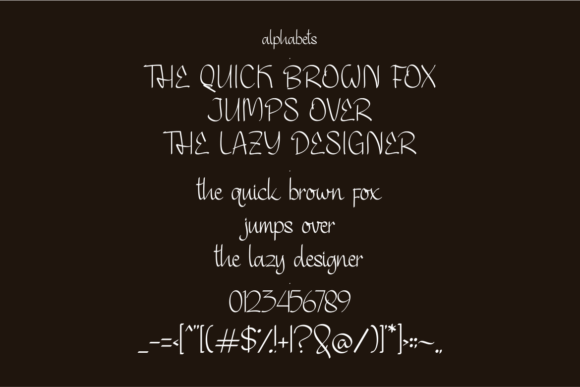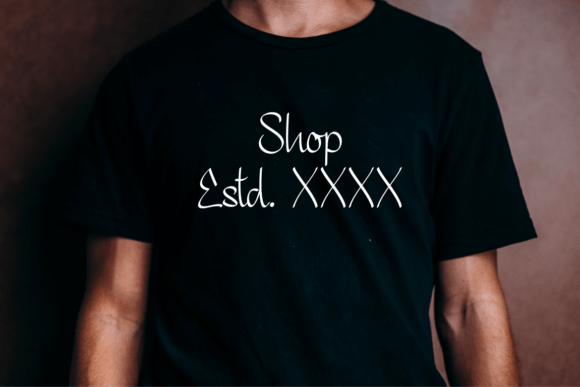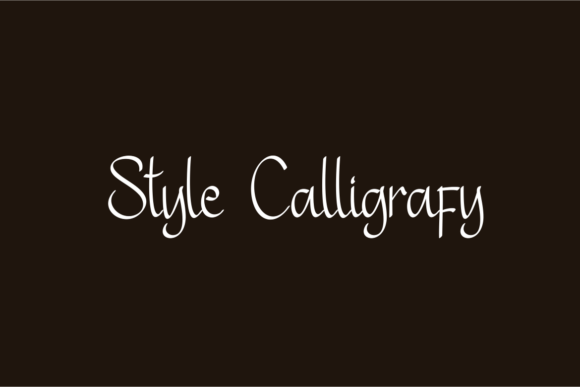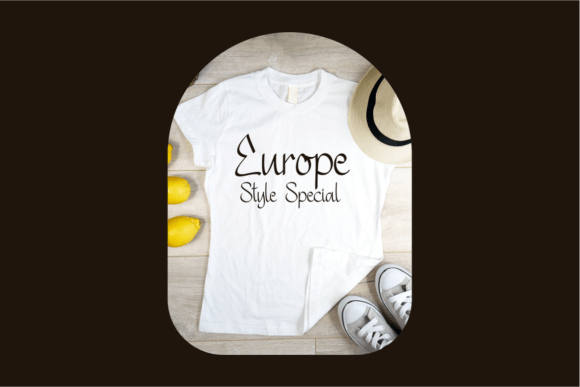
Introduction to Neghita Font
Have you ever stared at a blank canvas, trying to bring your creative vision to life, but struggling to find the perfect font to set the tone? That’s exactly where I was when I stumbled upon the Neghita Font. Its elegant, handwritten style instantly captured my attention, and I knew I had to share it with fellow designers.
As a valuable design resource, the Neghita Font is a game-changer for any creative project. Its high-quality design makes it easy to read, yet still retains an air of sophistication that elevates any product or design. Whether you’re working on a logo, brochure, or website, this font is sure to make a lasting impression.
About Neghita Font
What sets the Neghita Font apart is its versatility and accessibility. Not only is it a free download, but it’s also available with a transparent background, making it easy to integrate into any design. With its beautiful, flowing script, this font is perfect for adding a personal touch to your designs.
Key Features of Neghita Font
- Unique, elegant script font with a transparent background
- Supports Latin script and various languages, including English, Spanish, and French
Honest Review: Neghita Font
As a designer, I’m always on the lookout for high-quality design resources to enhance my creative projects. The Neghita Font caught my attention with its unique and elegant style.
- ✨ The font features a transparent background, allowing for seamless integration with any design.
- ✨ The Neghita Font is highly customizable, making it perfect for designers who like to experiment with different styles.
Overall, I’m impressed with the Neghita Font’s unique style and high quality. While it may have some limitations, it’s an excellent choice for designers working on creative projects who need a reliable and versatile design resource.
Neghita Font
The Neghita Font is a high-quality, versatile design resource perfect for creative projects. With its transparent background, it can be easily integrated into various design platforms.
Tips for Getting the Most Out of Neghita Font
For optimal results, use the Neghita Font in conjunction with high-quality images and a well-designed layout.
Experiment with different font sizes and styles to create visual interest and emphasis.
The Neghita Font is suitable for a variety of creative projects, including:
Graphic design, branding, and marketing materials
Web design, including websites and landing pages
Print design, including
Alternatives to Neghita Font
Pacifico is a beautiful, elegant script font perfect for creative projects that require a touch of sophistication. It’s ideal for designing wedding invitations, menus, and other elegant materials. Pacifico has a high-quality design and comes with a transparent background, making it easy to use in various design applications.
Compared to Neghita Font, Pacifico has a more refined and delicate feel, making it suitable for formal events and occasions. While Neghita Font has a more playful and whimsical tone, Pacifico exudes a sense of luxury and sophistication.
Great Vibes is a modern script font that’s perfect for designing creative projects that require a sense of movement and energy. It’s ideal for use in social media graphics, posters, and other promotional materials. Great Vibes has a high-quality design and comes with a transparent background, making it easy to use in various design applications.